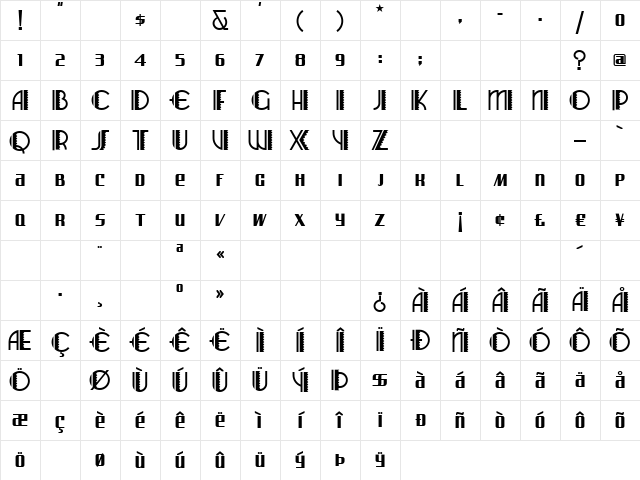
ArizonaAirwaysNF Regular
Foundry: Nick's Fonts
Designer: Nick Curtis
Design Context for ArizonaAirwaysNF
ArizonaAirwaysNF is a composed and adaptable typeface that performs quietly and consistently across a wide range of design contexts.